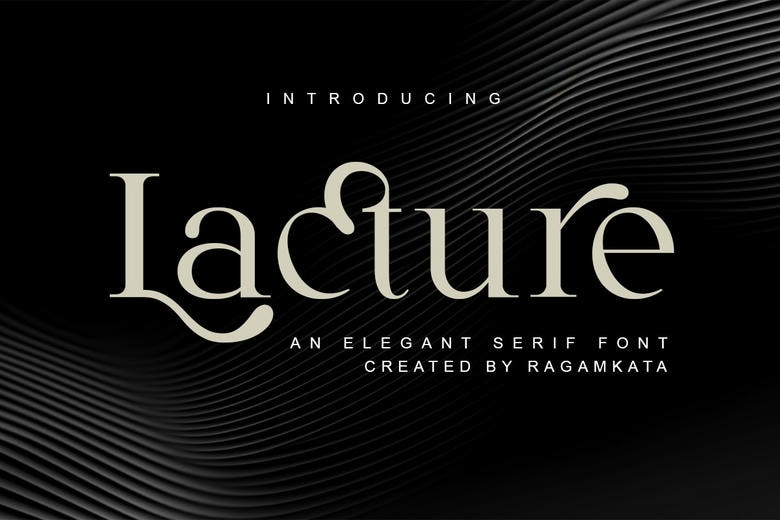
Lature Typeface is a luxurious and fancy serif font that is guaranteed to work well on just about every top-shelf design you ever produce. Lature is sophisticated with its curvy shapes, high contrasts, and exclusive ligatures; it is also dignified with strong elements of prestige.
Ideal in editorial set-ups, luxury brands, fashion primary, premium packaging, invitation set-ups, etc., Lature forms just the right kind of elegant finesse to any such piece. Its proportions are well balanced and its letterforms are smooth, therefore making it highly readable, with a distinctive visual identity.
Lacture Serif Font